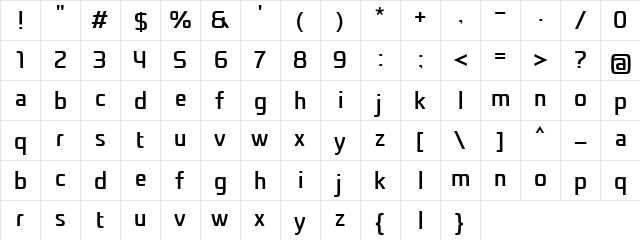
nethsans Regular
| Foundry | HeerHugo |
| Designer | HeerHugo |
Design Context for nethsans Typeface
nethsans is a composed and adaptable typeface that performs quietly and consistently across a wide range of design contexts.